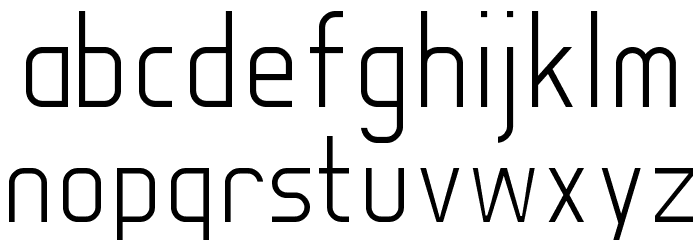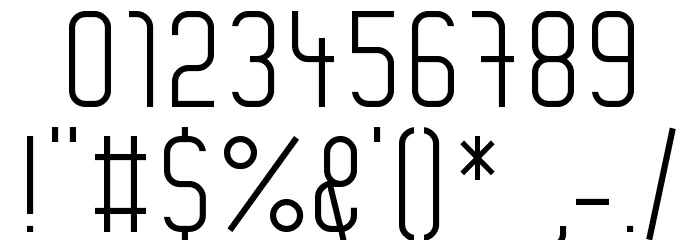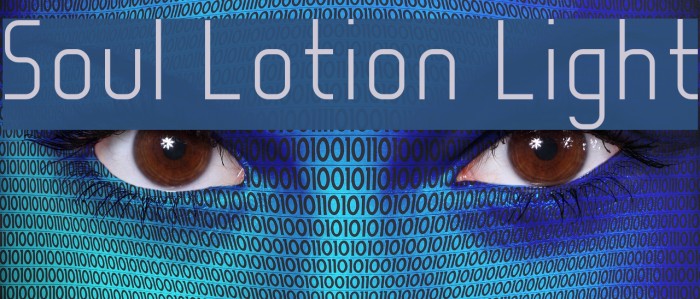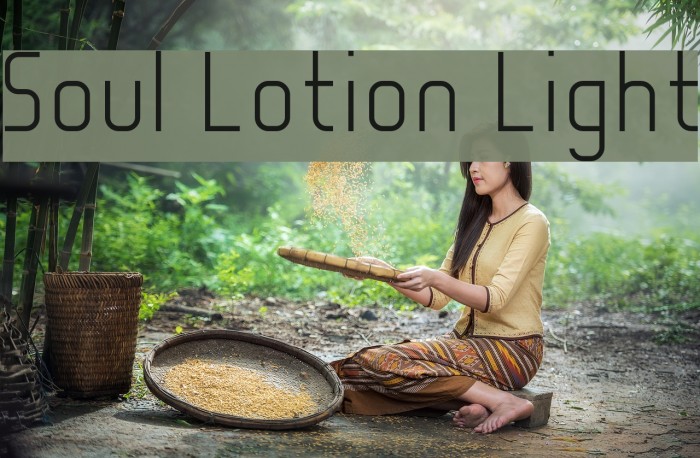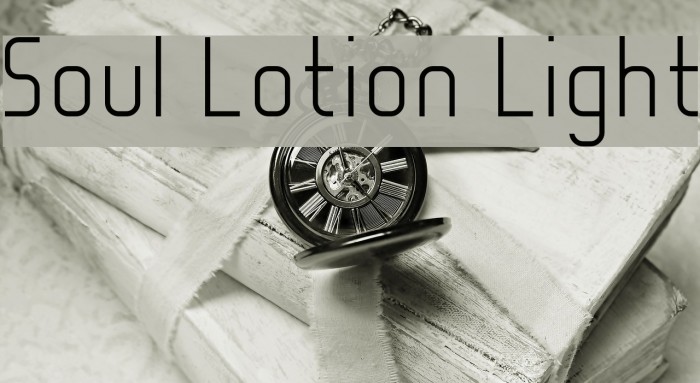
Soul Lotion Light Font
This font features a clean and modern sans-serif design with a geometric structure. The characters are uniform in width, giving it a monospaced appearance, yet they maintain a sense of elegance and readability. The uppercase letters are tall and slightly narrow, while the lowercase letters have a rounded, friendly look. The numerals are consistent with the overall style, ensuring clarity and balance. Special characters are well-integrated, maintaining the font's cohesive aesthetic. This font is versatile, suitable for both digital and print media, offering a contemporary feel.
A modern, geometric sans-serif font with a clean and elegant design.
- Proposed Projects: Ideal for tech branding, user interfaces, websites, and modern print materials.